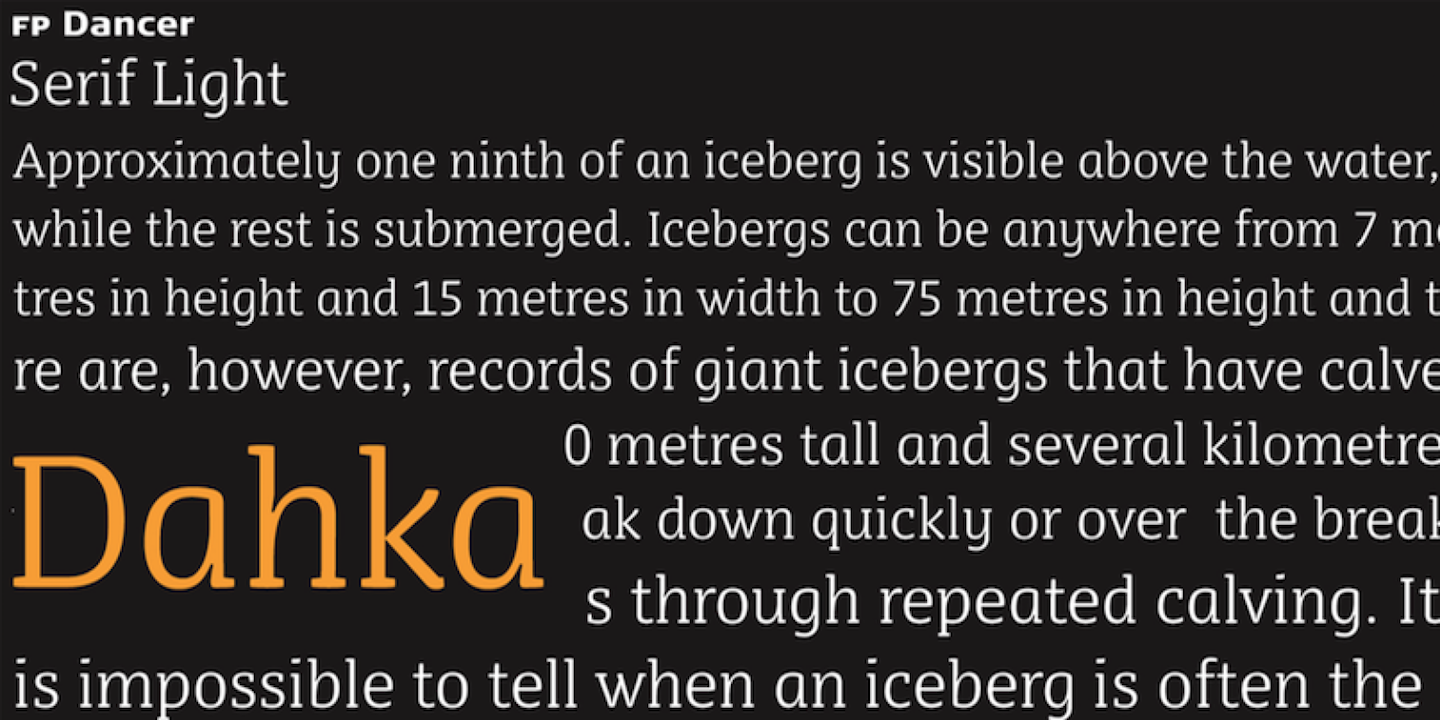
FP Dancer Serif Font is an exquisitely graceful and profoundly elegant typeface, perfectly suited for projects that aim to capture the fluid beauty of movement, the sophistication of dance, and a touch of timeless artistry. Imagine it gracing the luxurious invitations for a grand ballet performance, adding a romantic and ethereal flair to high-fashion editorials, or providing a captivating aesthetic for fine jewelry branding and artistic portfolios. It's also an excellent choice for crafting memorable headlines for cultural events, designing unique labels for premium products, or infusing digital content and social media graphics with a serene and visually enchanting personality. If you're looking to convey grace, rhythm, and an undeniable sense of delicate perfection, FP Dancer Serif Font is an outstanding selection.
What makes FP Dancer Serif Font so exciting? It’s its unparalleled ability to blend the intricate details of a classic serif with a subtle, almost calligraphic flow that evokes the effortless motion of a dancer. This font often features elegant ligatures, delicate swashes, and a harmonious balance between its robust serifs and dynamic curves, giving it an undeniable charisma and visual richness. Despite its decorative nature, FP Dancer Serif Font is meticulously designed to maintain excellent readability, ensuring your message is communicated beautifully and with an ethereal, captivating tone. Designers will appreciate its versatility in creating designs that feel both artistically profound and professionally polished, making it a go-to choice for brands and projects that aim to connect with their audience through themes of beauty, elegance, and refined artistry.
The FP Dancer Serif Font family is typically designed to showcase a singular, beautifully crafted display or serif style that perfectly embodies its unique appeal. While it may not feature extensive weight variations like a traditional text font, its strength lies in its inherent personality and often includes a rich set of stylistic alternates, swashes, or ligatures that enhance its elaborate aesthetic. These subtle details allow FP Dancer Serif Font to maintain its cohesive and enchanting look across various applications, from elegant brand endorsements to charming personal correspondence. Discover the captivating allure of FP Dancer Serif Font Free Download and infuse your designs with an unforgettable sense of graceful splendor.